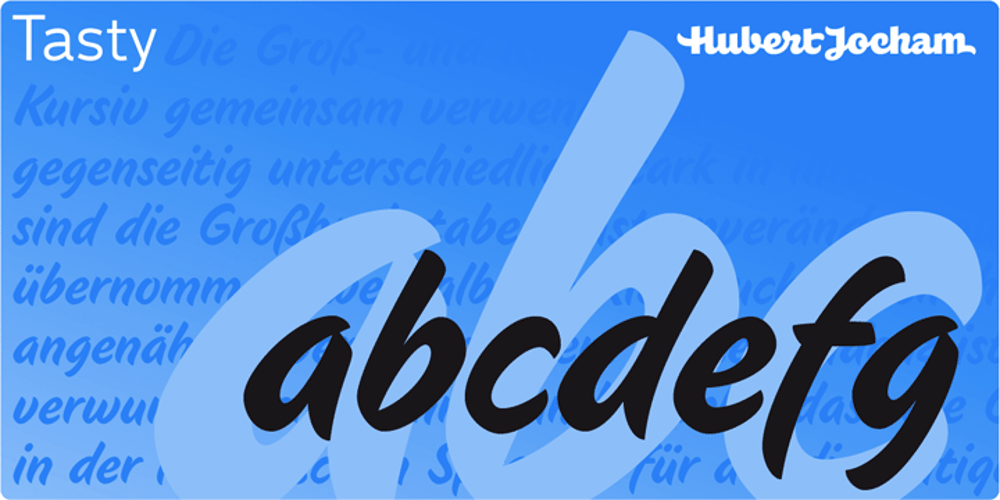
Tasty Font Family was designed by Hubert Jocham and published by Hubert Jocham Type. Tasty contains 5 styles and family package options. Tasty is an strong self-confident brush script headline typeface. It is ideal for food packaging and product branding.